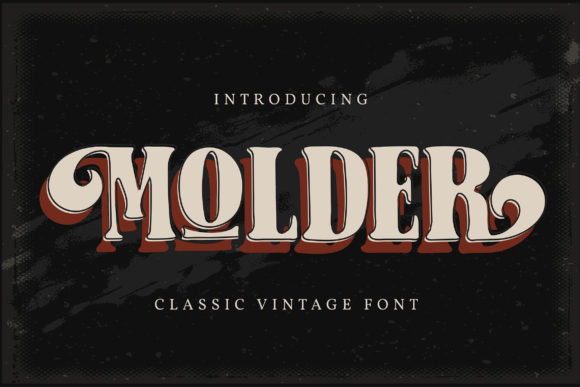
In a world saturated with uniformity, Molder Font emerges as a beacon of individuality, an artistic force that shatters the boundaries of the ordinary. Crafted with meticulous precision, Molder Font possesses a bold, vintage charm that transports you to an era of elegance and sophistication. Its thick, pronounced letters command attention, demanding recognition amidst a sea of mundane typography.
Molder Font is more than just a font; it's an expression of creativity, a testament to the enduring power of originality. Its unique character adds an instant touch of distinction to any project, whether it's a captivating logo, an eye-catching poster, or a striking social media graphic. Unleash your imagination and watch as Molder Font transforms your words into captivating works of art.
Beyond its aesthetic appeal, Molder Font is a practical choice for discerning designers. Its robust structure ensures impeccable clarity, even at the smallest sizes, making it an ideal choice for intricate designs and presentations. The font's versatility extends to various applications, from web design to print, allowing you to maintain a consistent brand identity across all platforms.
Molder Font is not just a tool; it's an extension of your creative spirit, a catalyst for your artistic expression. Its carefully crafted curves and lines evoke a sense of nostalgia, a longing for a time when craftsmanship and attention to detail were paramount. Embrace Molder Font and embark on a typographic journey like no other.
With Molder Font as your ally, you'll unlock a world of possibilities, turning your creative visions into tangible realities. Let your imagination soar as you create designs that captivate, inspire, and leave a lasting impression. Experience the transformative power of Molder Font and discover a new realm of typographic excellence.